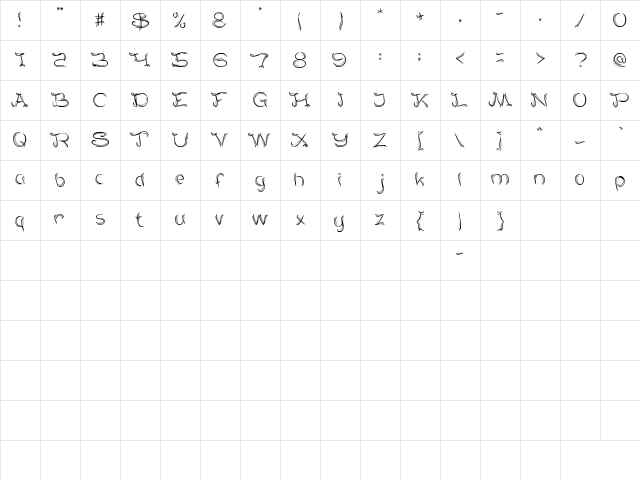
SERAT KAYU Regular Free Font
SERAT KAYU Regular
Complete SERAT KAYU Regular glyph index. Displaying only characters natively supported by SERAT KAYU Regular font.
Design Context for SERAT KAYU
SERAT KAYU is a composed and adaptable typeface that performs quietly and consistently across a wide range of design contexts.